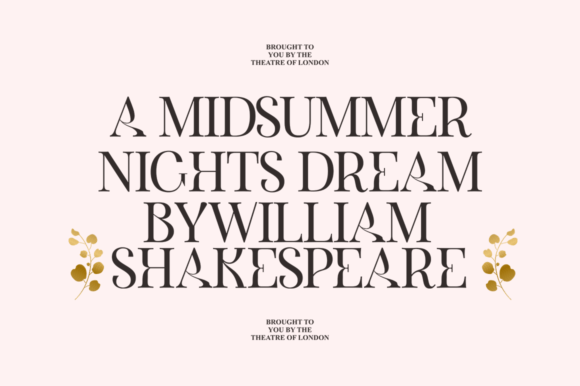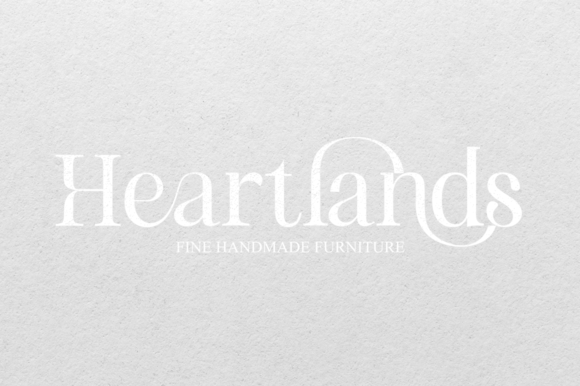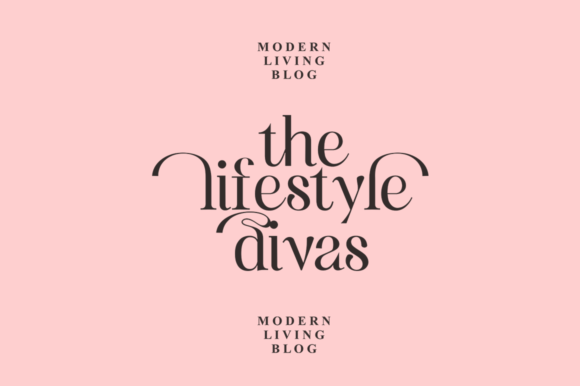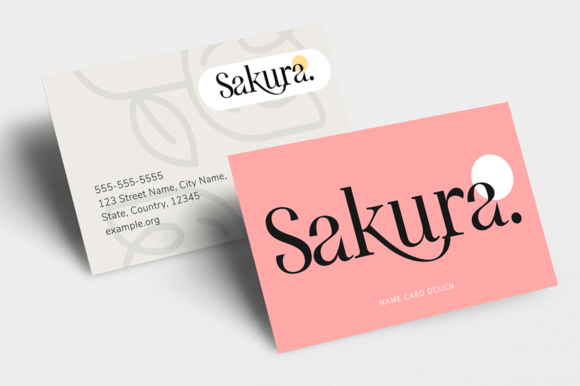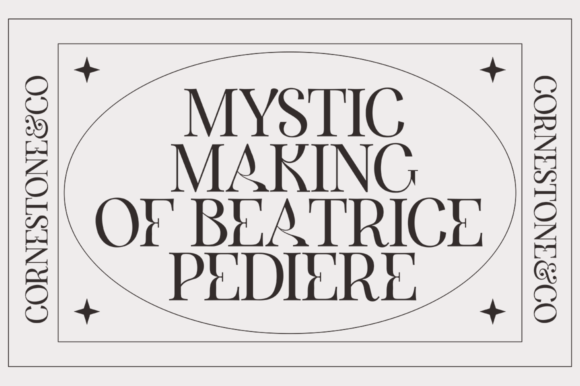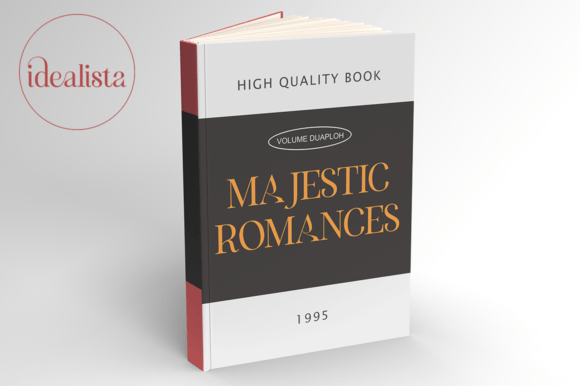
Idealist Models Font – Free Download
Introduction to Idealist Models Font
Idealist Models – a stylish rich serif with letters that seem to dance and twist harmoniously together to form unique & elegant typography designs.
A large selection of interwoven Opentype ligatures and alternates means ample selection and variety in your finished look This font is PUA encoded, which means you can access all of the glyphs and swashes with ease.
Key Features of Idealist Models Font
Why Choose Idealist Models Font?
Idealist Models Font offers exceptional quality and versatility, making it a valuable addition to your design toolkit. Whether you’re creating for personal projects or commercial use, Idealist Models Font delivers professional results.